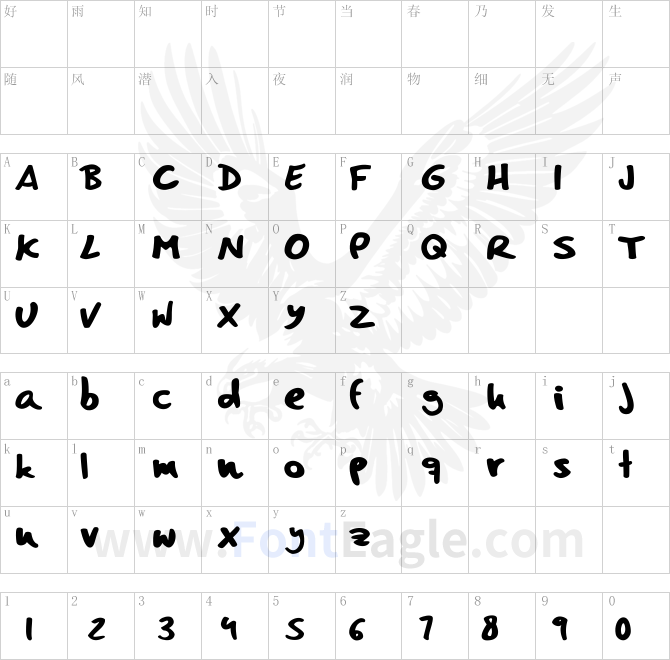
- Font name:Comic Book Fun
- Font Subfamily ID:1.000;PYRS;ComicBookFun-Regular
- Font Full Name:Comic Book Fun Regular
- Postscript:ComicBookFun-Regular